Choosing from vintage calligraphy fonts for 2026 starts with the job your typography must do. Consider the words, their final size, and the mood of the project. The options below are organized to help you compare useful directions before testing candidates in your own layout.
How to evaluate the options
Set the real headline, name, or label in each candidate. Check legibility at the final size, compare the capitals and repeated letters, and leave enough room for decorative details. Use a quieter companion font for long descriptions and other supporting text.
Font picks
Vintage Calligraphy Font for packaging
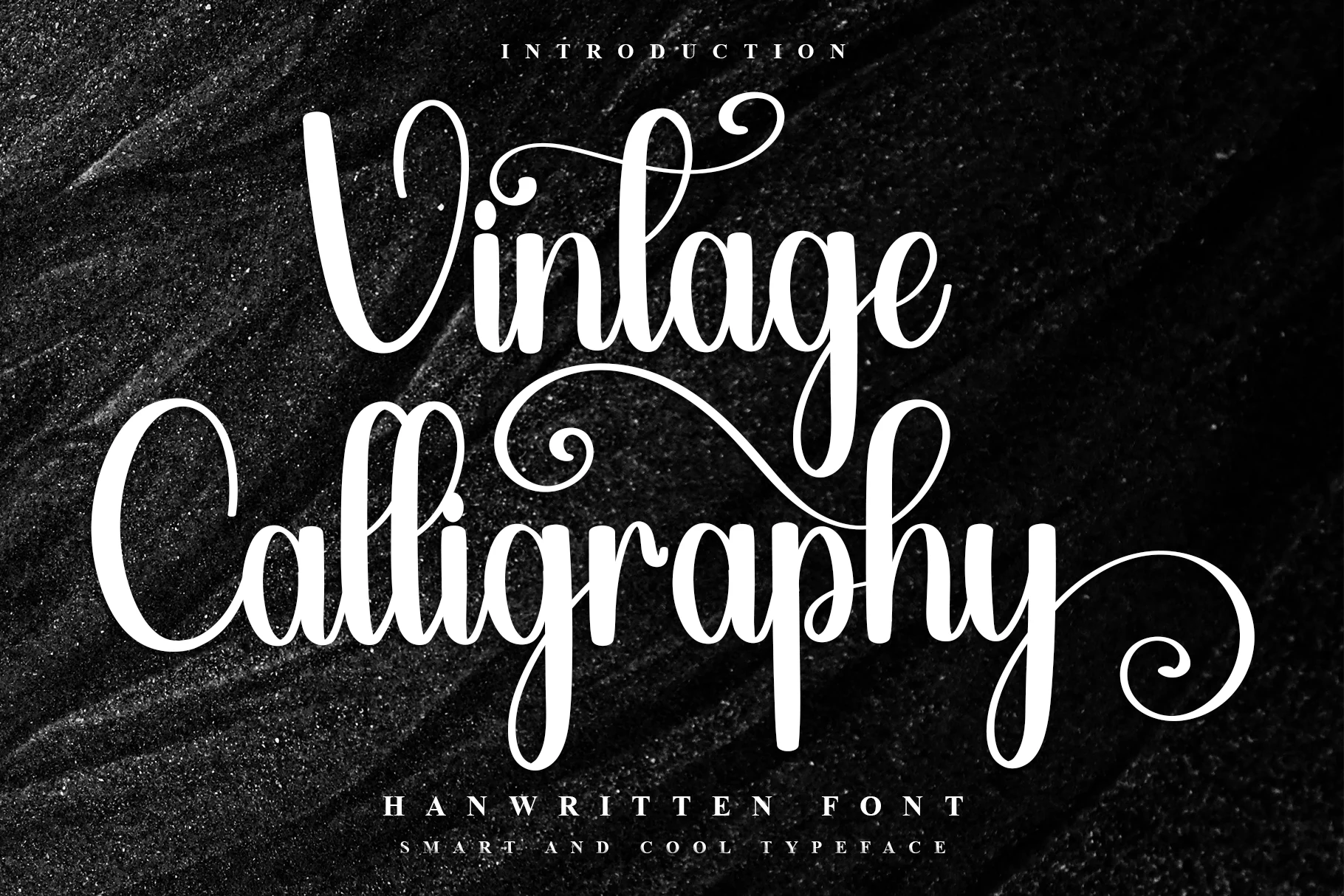
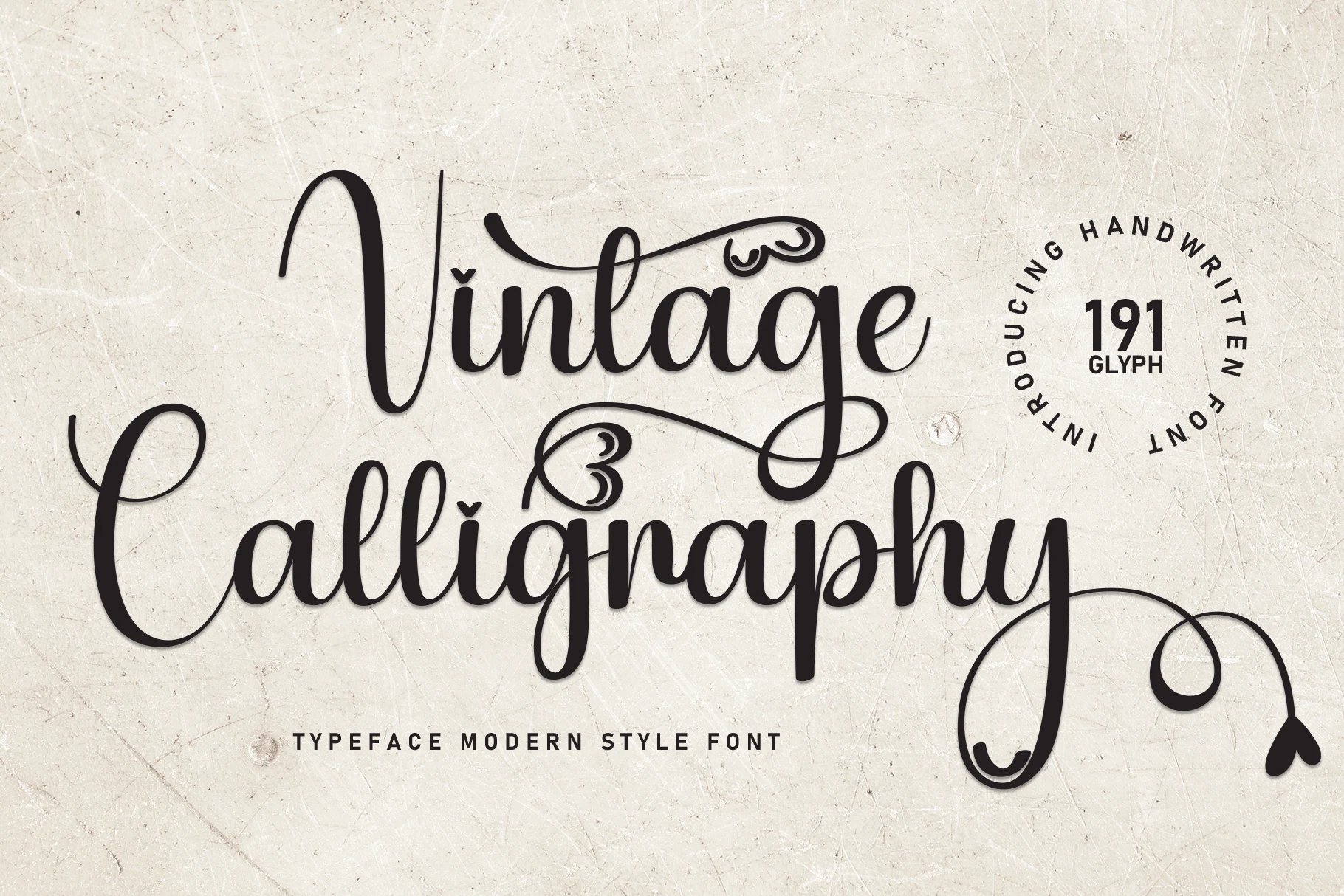
Vintage Calligraphy Font is worth testing for packaging, display text, and short phrases. Look for a vintage mood and display-focused letterforms when comparing it with other options. Compare it with contemporary supporting type for contrast.
Youngboy Font for branding
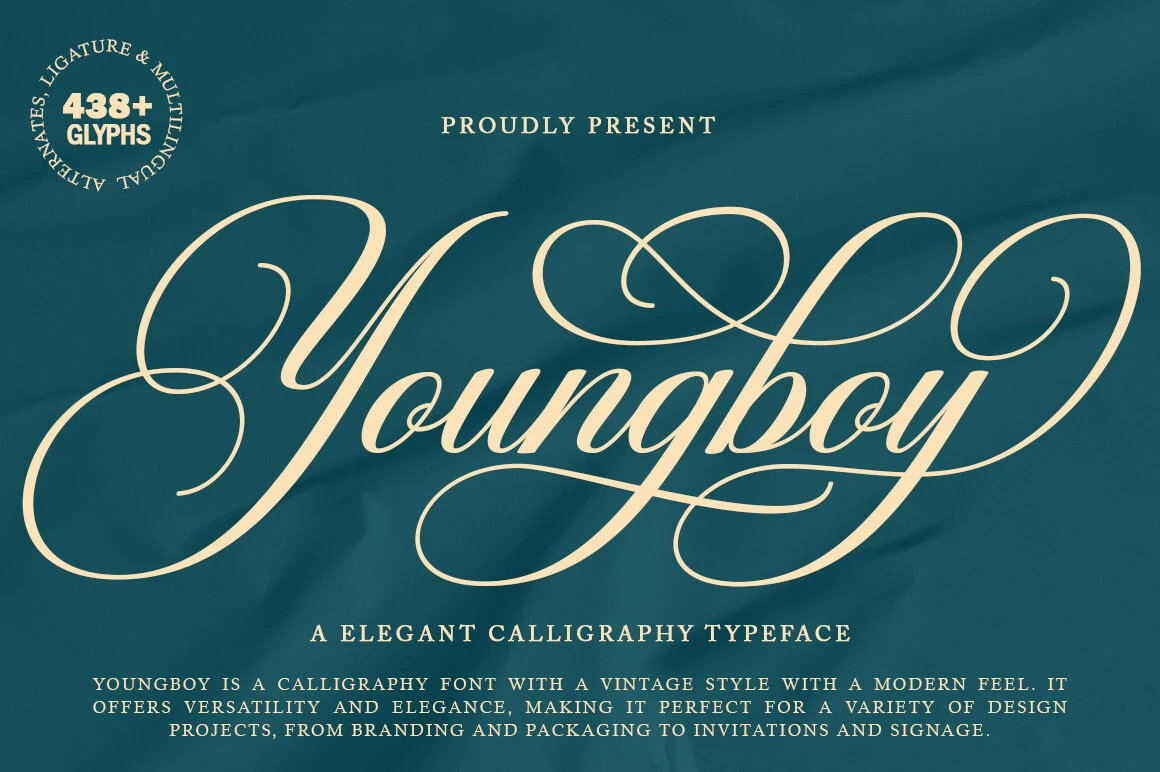
For branding, packaging, and invitations, consider Youngboy Font. Its design draws on display-focused letterforms. Use it where the type can be seen at a generous size.
Sophistico Font for headlines
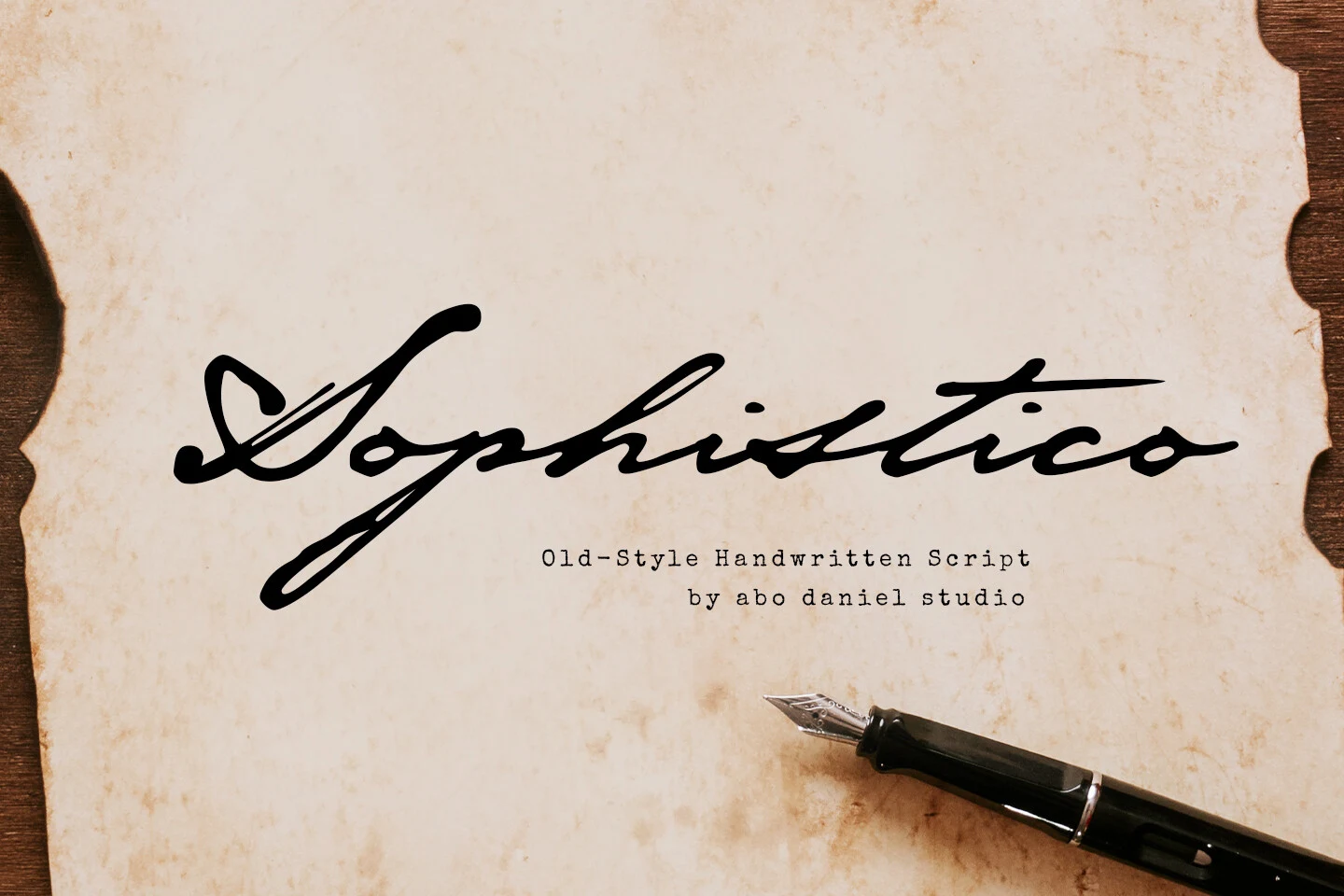
Sophistico Font can anchor headlines, invitations, and wedding designs. The main visual cues are decorative swashes and a vintage mood. Use flourishes selectively around short words or names.
Meighan Script Font for logos
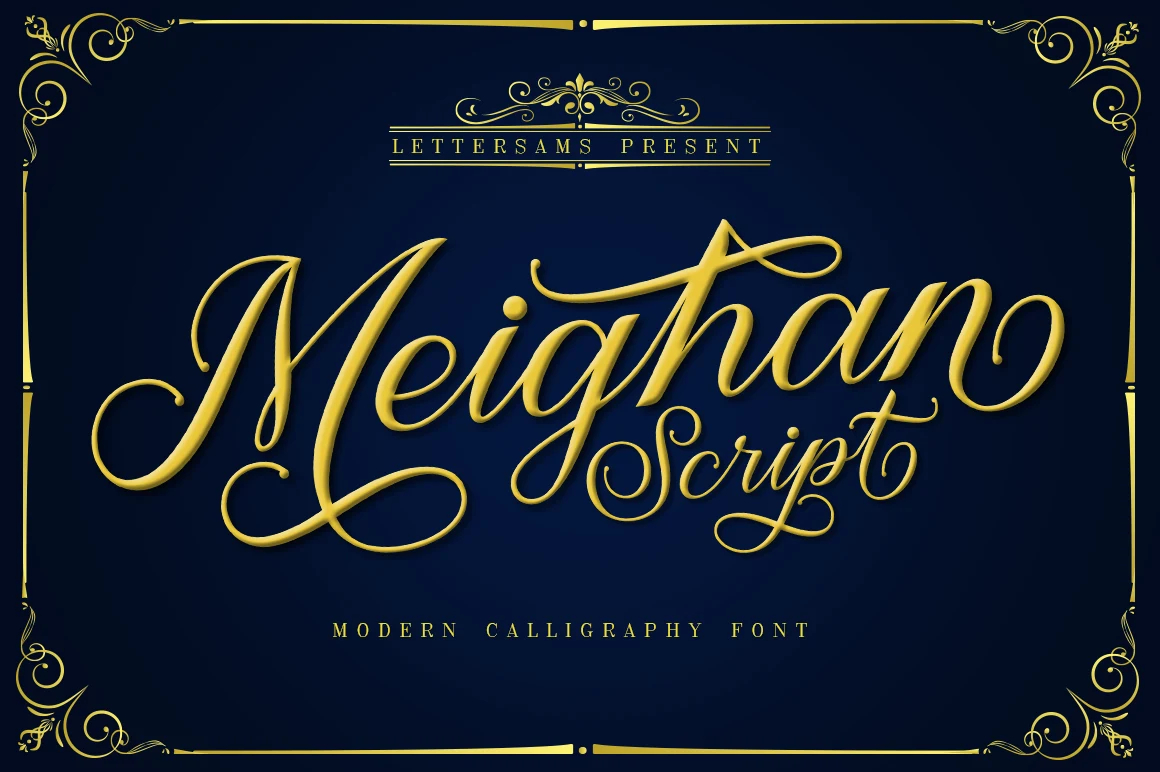
Meighan Script Font is worth testing for logos, product labels, and wedding designs. Look for flowing script forms and a vintage mood when comparing it with other options. Test letter joins and capitals in your actual wording.
Miraclin Font for invitations
For invitations, wedding designs, and quotes, consider Miraclin Font. Its design draws on display-focused letterforms. Use it where the type can be seen at a generous size.
Vintage Calligraphy Font for invitations
Vintage Calligraphy Font can anchor invitations, wedding designs, and romantic designs. The main visual cues are a vintage mood. Compare it with contemporary supporting type for contrast.
Marley Heritage Font for logos
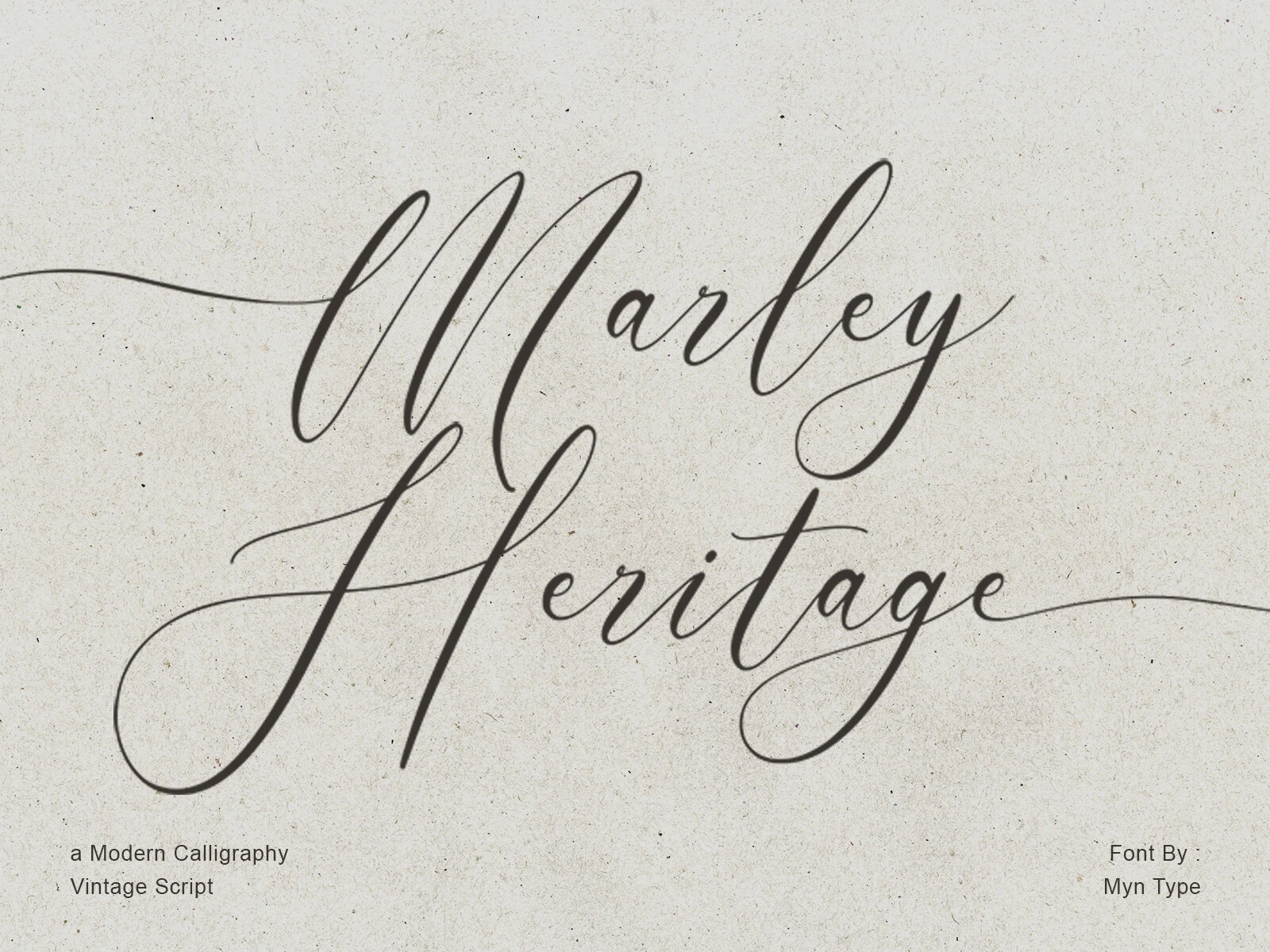
Marley Heritage Font is worth testing for logos, branding, and wedding designs. Look for flowing script forms and a vintage mood when comparing it with other options. Test letter joins and capitals in your actual wording.
Syiterlla Outline Font for invitations